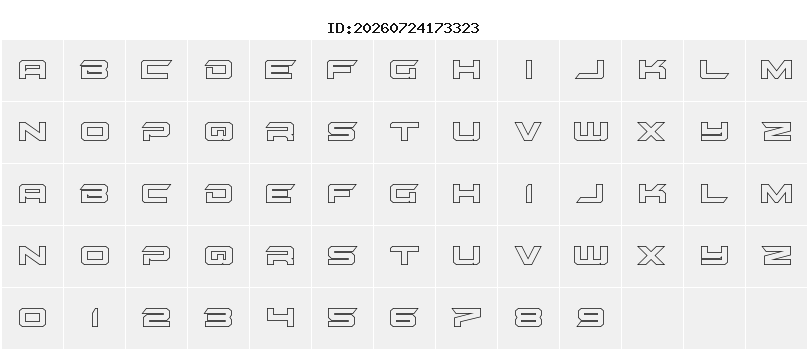
• Font Name: Gypsy Killer Outline
• Full Font Name: Gypsy Killer Outline Regular
About Gypsy Killer Outline.ttf
Gypsy Killer Outline.ttf is a modern, elegant sans-serif font designed for ultimate readability and visual harmony. Perfect for branding, headlines, web design, and print materials.